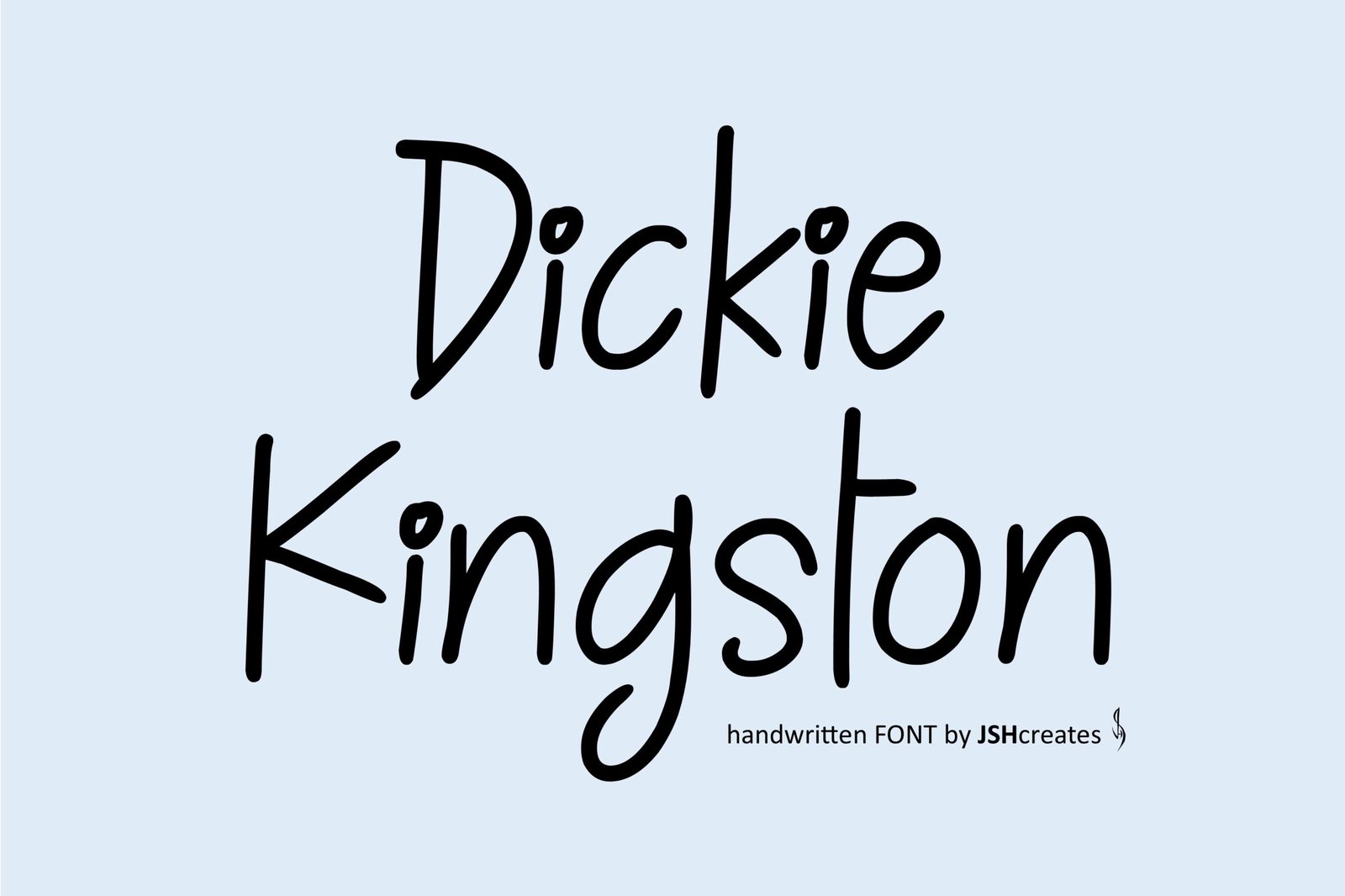
Dickie Kingston Font
Handwritten font. “Dickie Kingston”. Perfect for advertising and display purposes, including banners, book covers, shirts, posters, logos and much more!